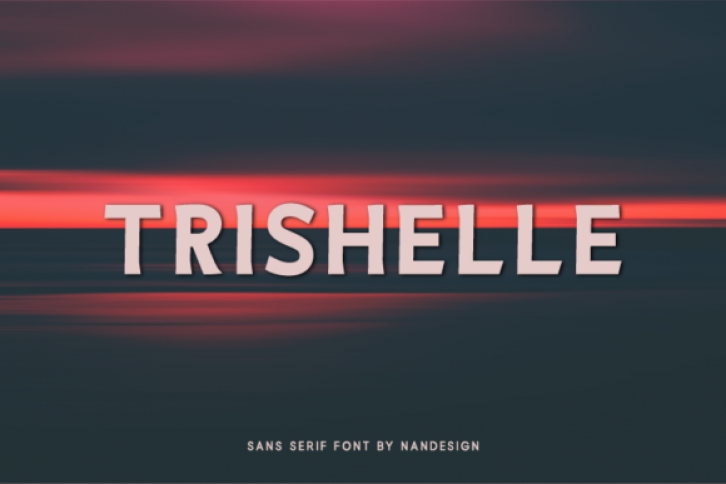
Trishelle is a simple and minimal sans serif font. It is defined by smooth lines and is perfect for fashion branding or editorial designs. Add it confidently to your projects, and you will love the results.